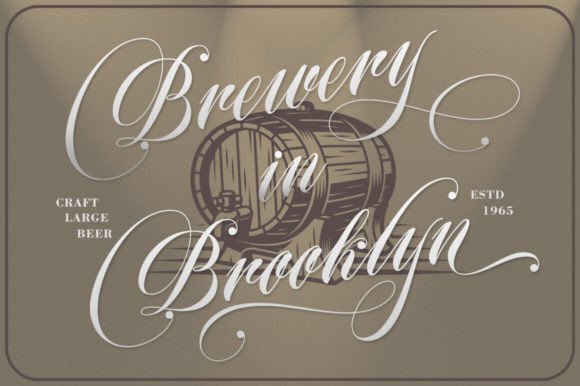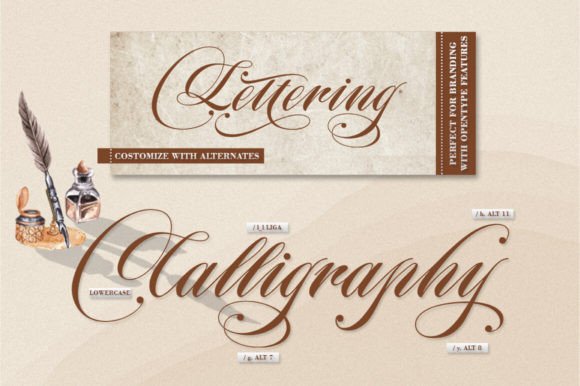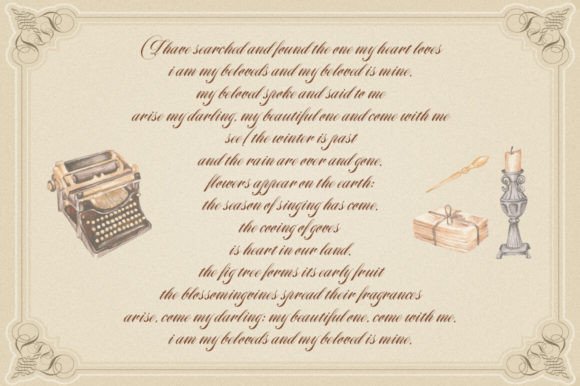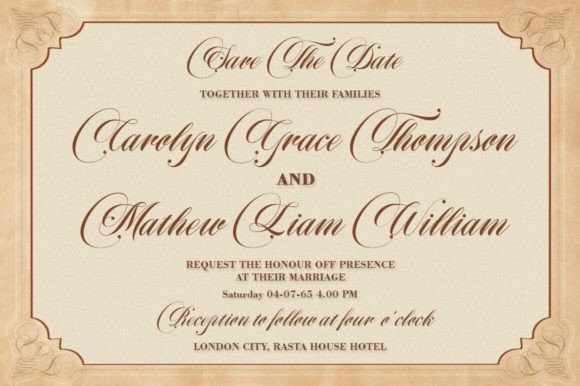
Rhampdone Font
Rhampdone Script is a calligraphy Vintage script font that comes with beautiful alternate characters. copper plate mix calligraphy with handlettering style. Designed to convey stylish elegance. Rhampdone attracts like a typeface that is smooth, clean, feminine, sensual, glamorous, simple and very easy to read.